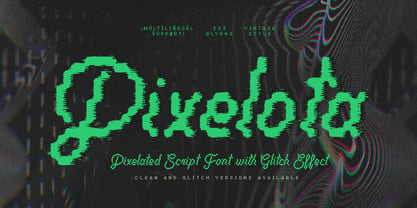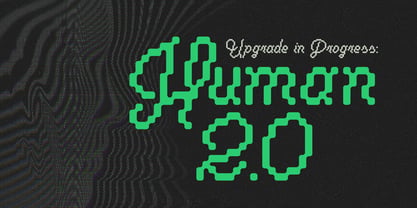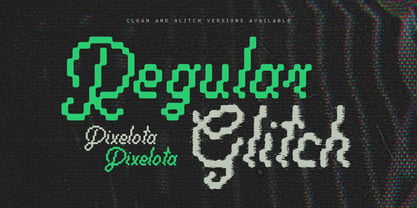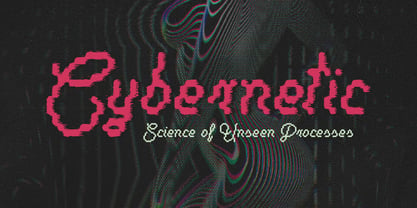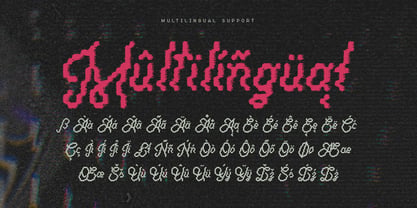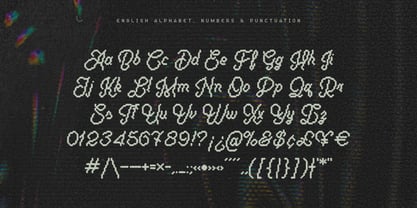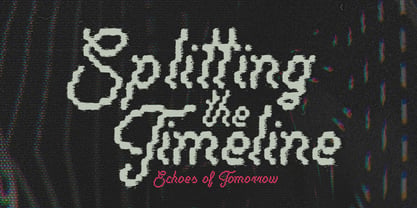
Pixelota
by Gleb Guralnyk
The Pixelota Font Family was designed by Gleb Guralnyk and published by Gleb Guralnyk. Pixelota contains 2 styles and family package options. More about this family
Introducing Pixelota, a vintage pixelated script font with a unique blend of vintage Y2K vibes and authentic modern design. This font is available in two versions — regular clean and distorted glitch. Whether you’re designing edgy streetwear graphics, retro-gaming interfaces, or bold social media posters, Pixelota brings a nostalgic yet high-tech energy to any creative project. Pixelota font has a set of 223 characters, including few ligatures and multilingual support. Check out the screenshots to see the full character set.
Pixelota